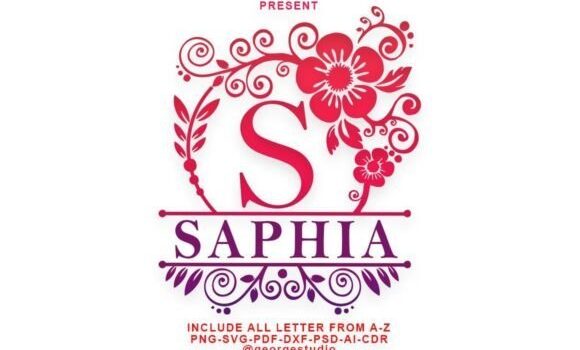
saphia
Saphia Monogram Font – Free Download Introduction to Saphia Monogram Font Saphia Monogram is an elegant decorative font, featuring lovely ornaments. 📸 Preview Gallery 2 images 📌 Product Name Saphia Monogram Font 👤 Author George Studio 📂 Category Explore ⬇️